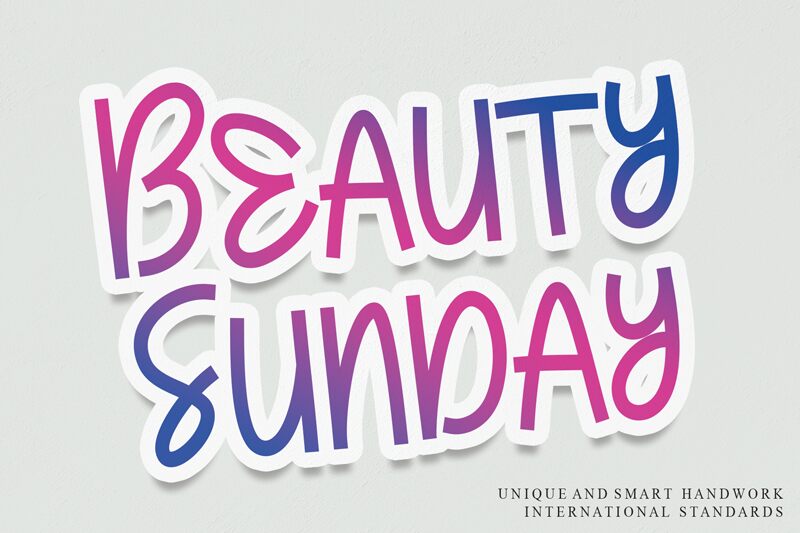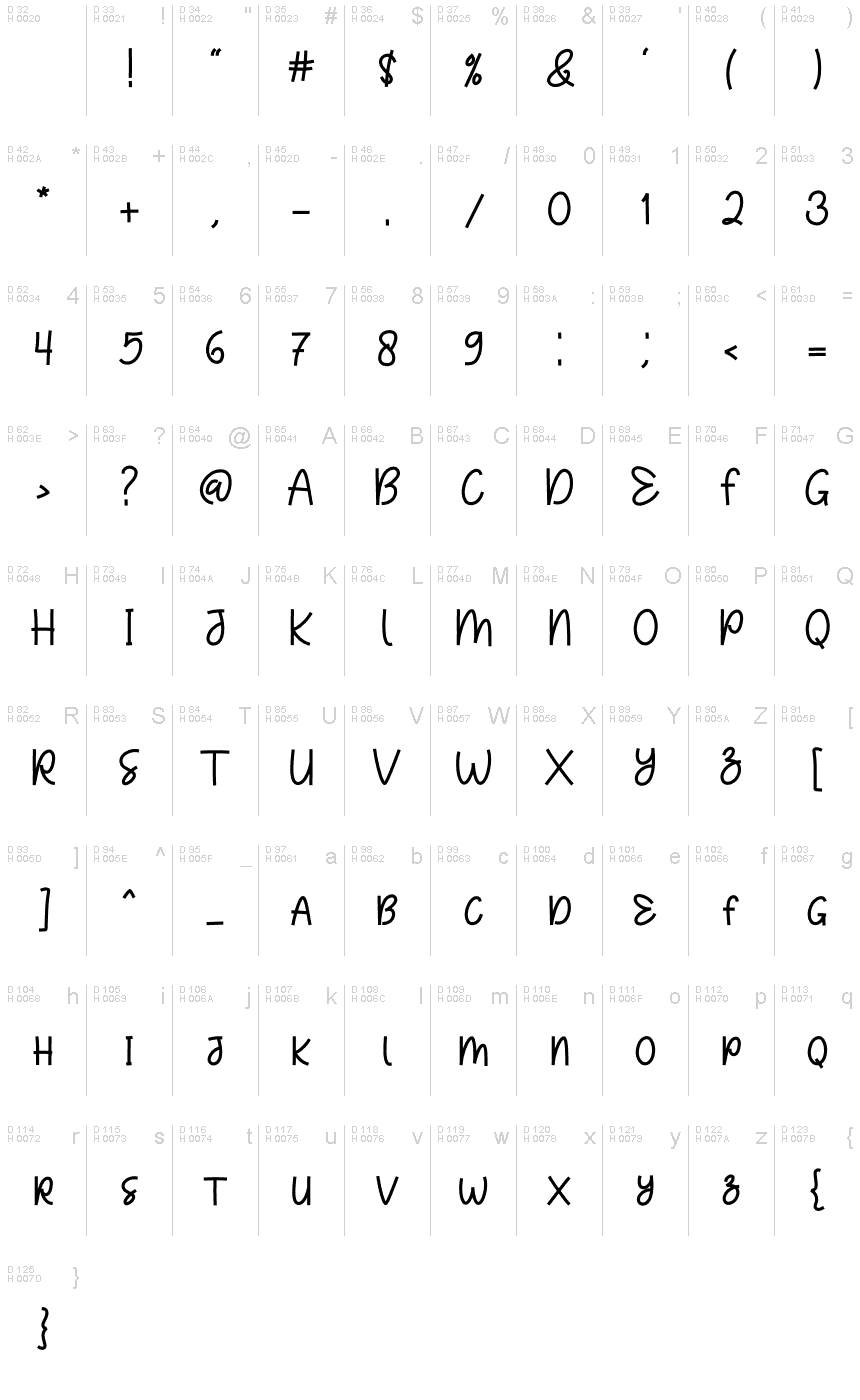
Beauty Sunday
Beauty Sunday is a light script-style display font by Gado Gado. It is perfect for creating eye-catching titles and logos, as well as invitations, packaging labels, and product designs. Let Beauty Sunday bring a touch of elegance to your next project!
the latest style letters are perfect for wall displays, wedding invitations, social media post logos,
advertisements, product packaging, product designs, labels, photography, watermarks, invitations, stationery,
and any project that requires taste handwriting.